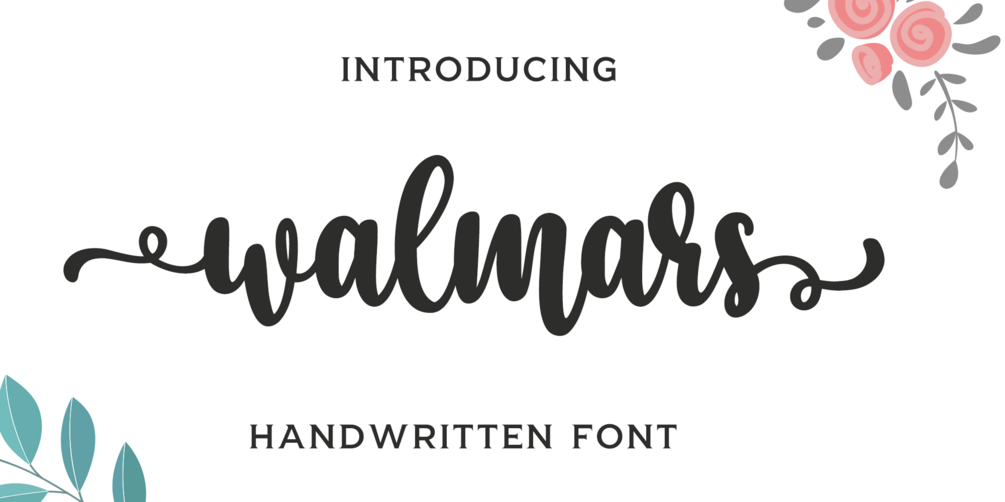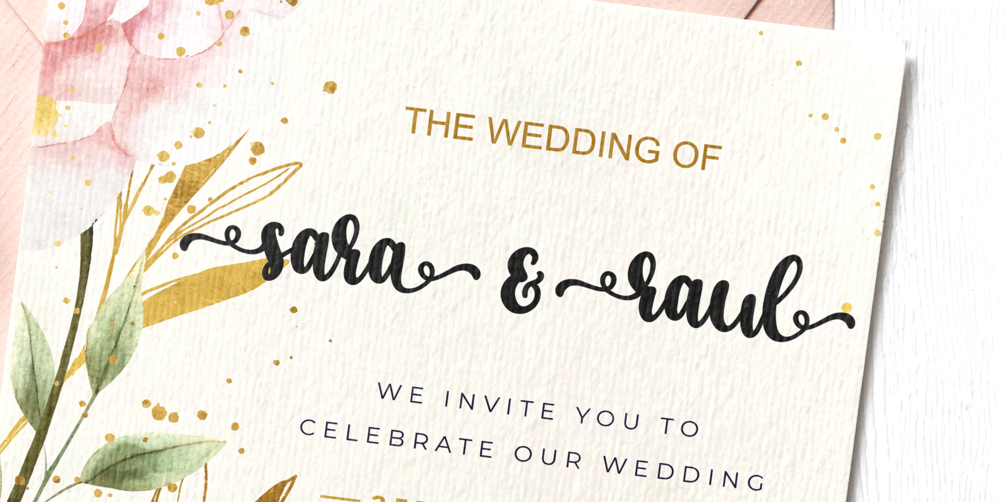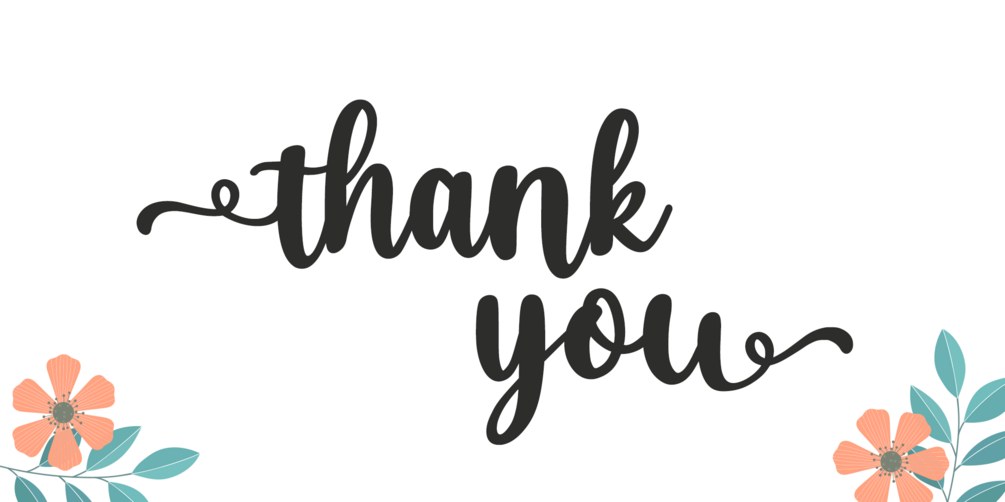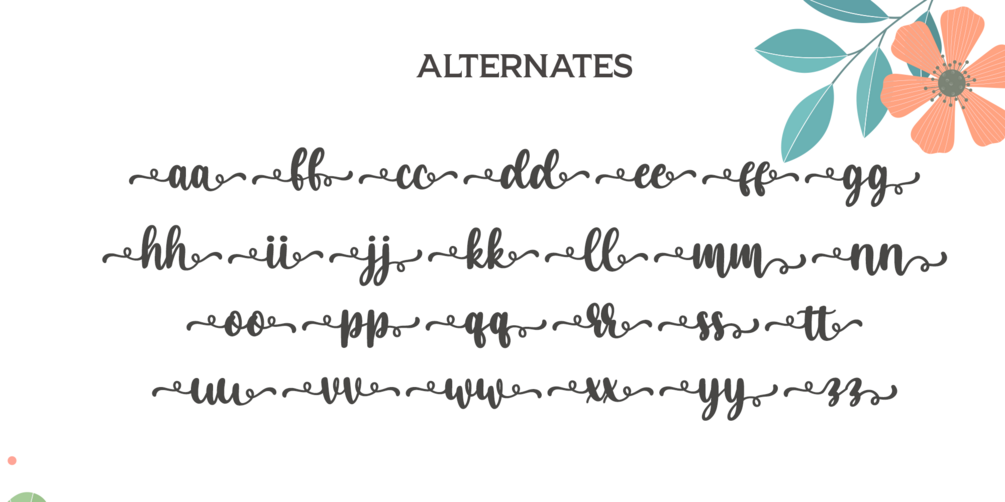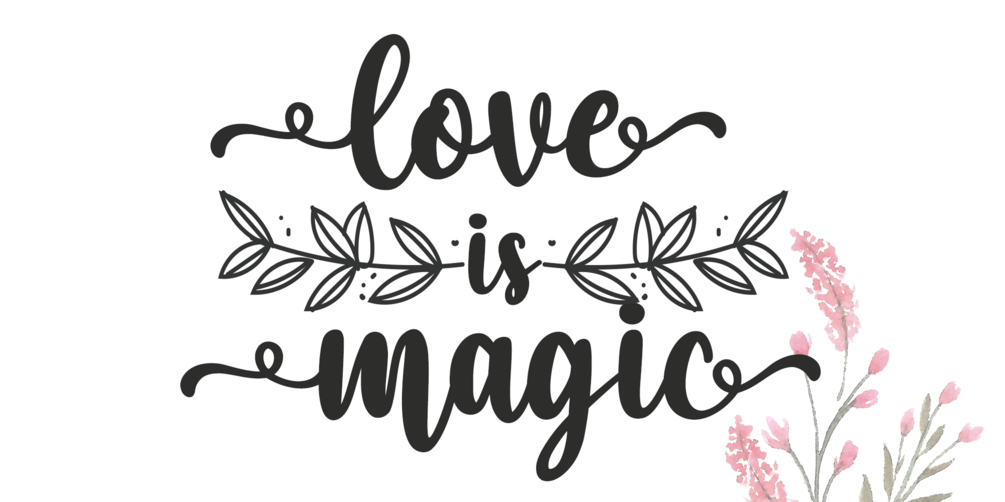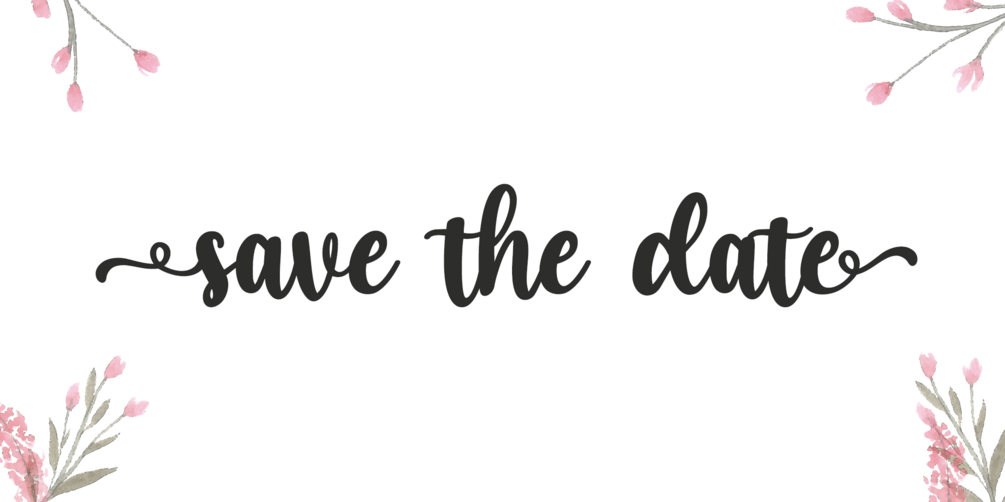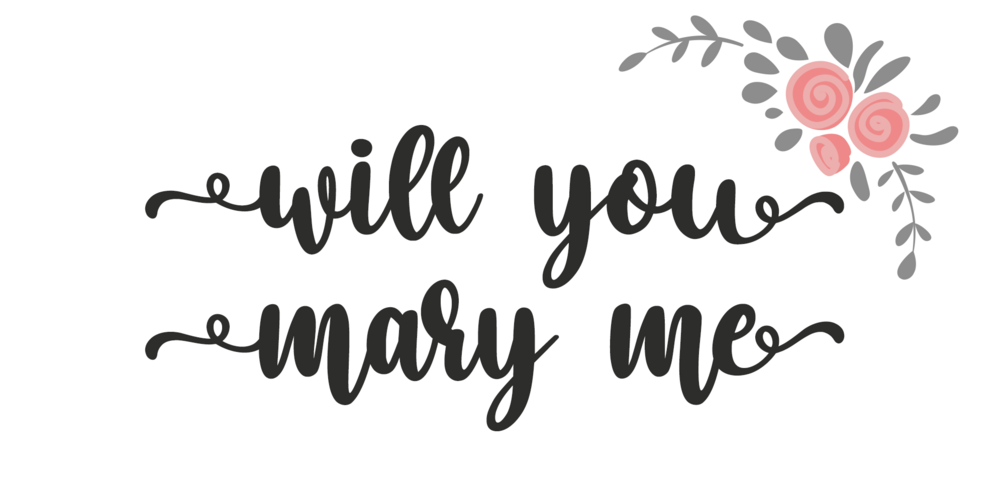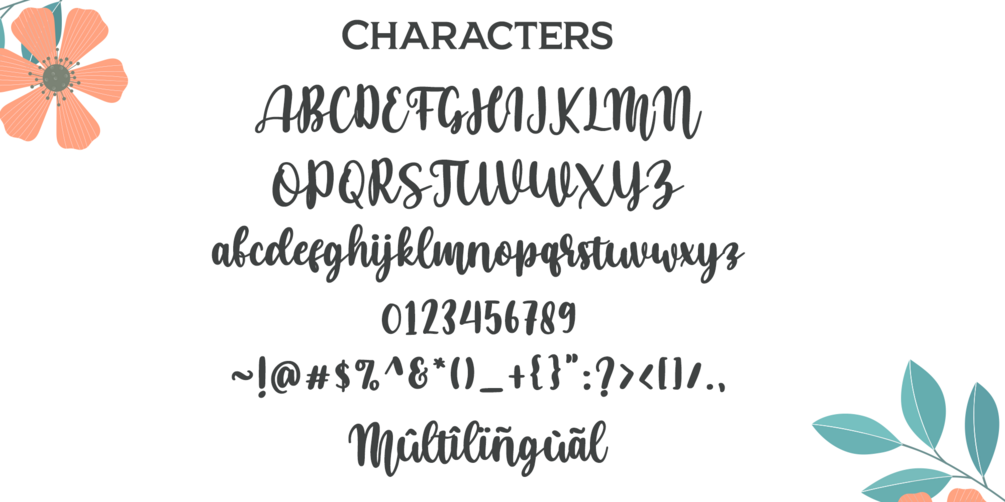
Walmars
Walmars is an exquisite calligraphy script font that embodies romance, luxury, and timeless elegance. The characters are beautifully crafted to dance gracefully along the baseline, giving your design projects an organic, sophisticated, and genuinely handwritten touch. This typeface ensures your work always makes a powerful, exclusive, and unforgettable visual statement, perfect for high-end branding and luxurious stationery. Walmars is fully PUA Encoded, granting you effortless access to all the beautiful swashes, alternate characters, and ligatures without requiring any specialized design software.
Ideal for:
- Luxury Branding & Logo Design
- Elegant Wedding Invitations & Stationery
- High-End Packaging and Product Labels
- Feminine & Beauty Product Branding
- Premium Social Media Quotes & Posters
- Ligatures, Alternates, & Swashes (PUA Encoded)
- Multilingual Support (Global Characters)